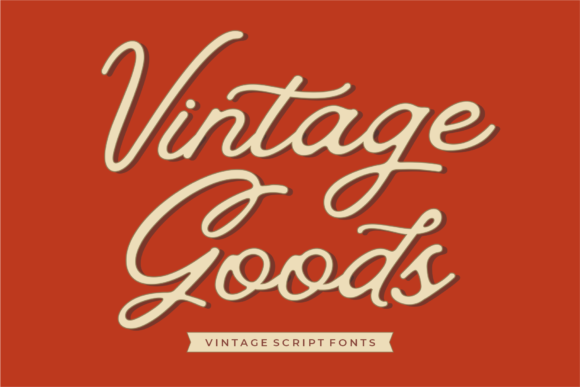
Looking for the perfect font to make your designs stand out and evoke a sense of nostalgia? Look no further than Vintage Goods Script Font! Created by the talented team at 50Fox, this font is not just any script font - it's the best font for script tattoos!
Inspired by the 1980s, a decade that brought calligraphy back into the spotlight, Vintage Goods Script Font captures the essence of that era. It beautifully combines the art of calligraphy with the emotions that photography and human connection can evoke. This font is more than just a typeface - it's a journey back in time.
Imagine adding a touch of elegance to your wedding invitations with Vintage Goods Script Font. The graceful curves and fluid strokes will surely leave a lasting impression on your guests. And if you're looking to make a bold statement on your business cards, this font will do just that. Its unique style will set you apart from the competition and make your brand unforgettable.
But the uses of Vintage Goods Script Font don't stop there. Get creative with your greeting cards and let this font add a touch of warmth and personality to your heartfelt messages. Want to make your social media posts more eye-catching? Vintage Goods Script Font will help you grab your audience's attention and make your message truly captivating.
Not only is this font perfect for digital designs, but it also shines when brought to life on physical mediums. Imagine having a stunning piece of wall art featuring your favorite quote in Vintage Goods Script Font. It will instantly elevate the ambiance of any space and become a conversation starter.
With Vintage Goods Script Font, the possibilities are endless. Its versatility allows you to express your creativity in various ways, making it a must-have for any designer, artist, or anyone looking to make a statement with their typography.